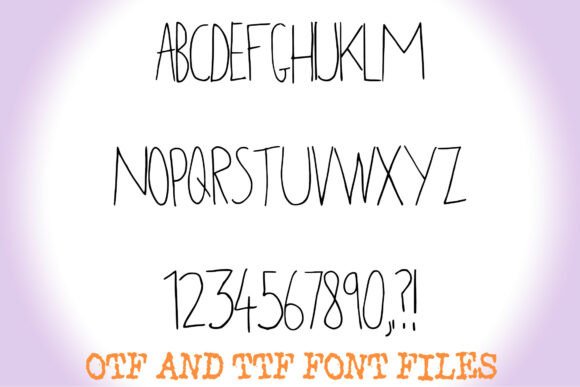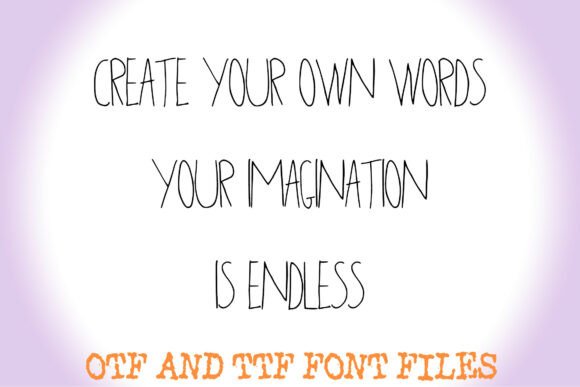
Introduction to Biro Pen Doodle Font Font
Fonts play a crucial role in design, and the Biro Pen Doodle Font font is a typeface that brings both character and versatility to any project. Whether you’re working on a branding project, a website, or a print design, the Biro Pen Doodle Font font offers a unique style that can elevate your work.
Infuse your designs with an authentic, everyday charm and effortless personality using Biro Pen Doodle Font.
This wonderfully approachable typeface perfectly captures the spontaneous, relaxed feel of a quick note or a friendly doodle made with a ballpoint pen Itβs more than just a font; itβs an instant dose of warmth and individuality, designed to bring a unique touch to any creative project.
Key Features of Biro Pen Doodle Font Font
Why Choose Biro Pen Doodle Font Font?
The Biro Pen Doodle Font font is more than just a typeface β it’s a design tool that helps you communicate your message with style and clarity. Its unique character set and versatile design make it suitable for a wide range of applications, from elegant invitations to bold headlines.
With its carefully crafted letterforms and balanced proportions, the Biro Pen Doodle Font font ensures readability and visual appeal across all mediums.
What makes Biro Pen Doodle Font font special?
The Biro Pen Doodle Font font stands out with its unique design, exceptional readability, and versatility across various design applications.